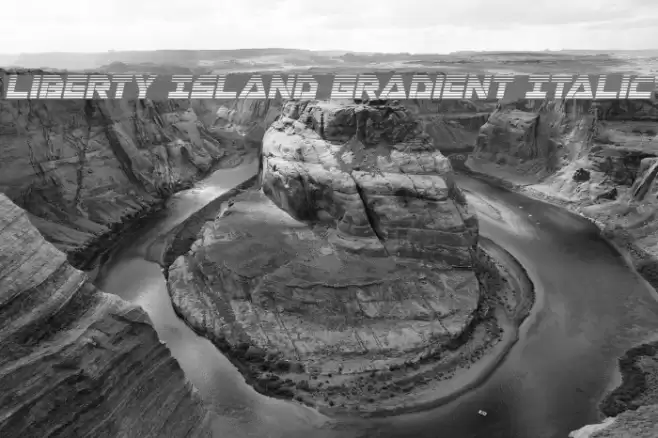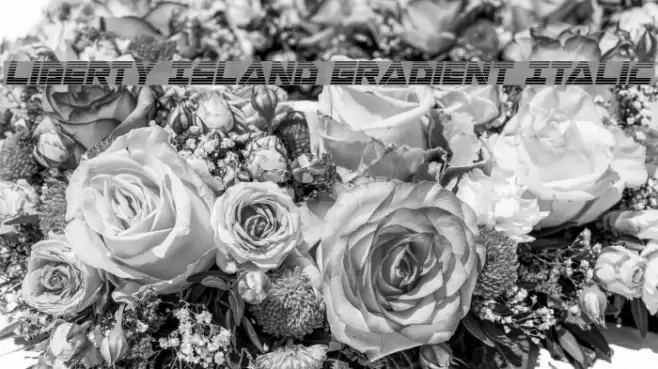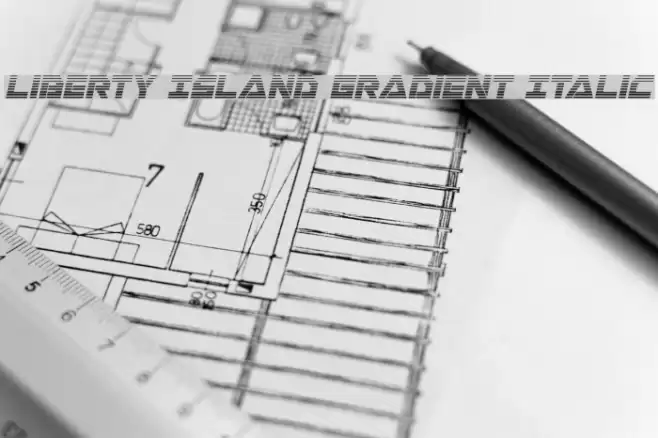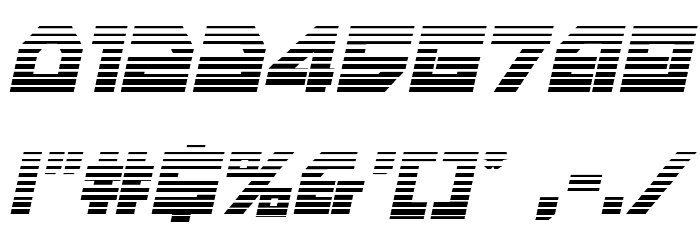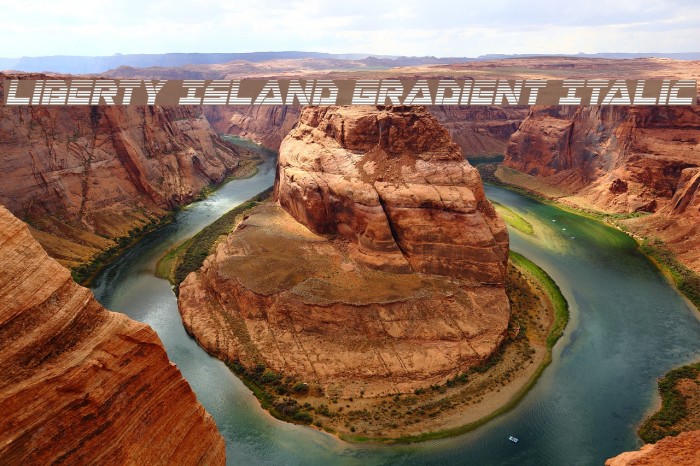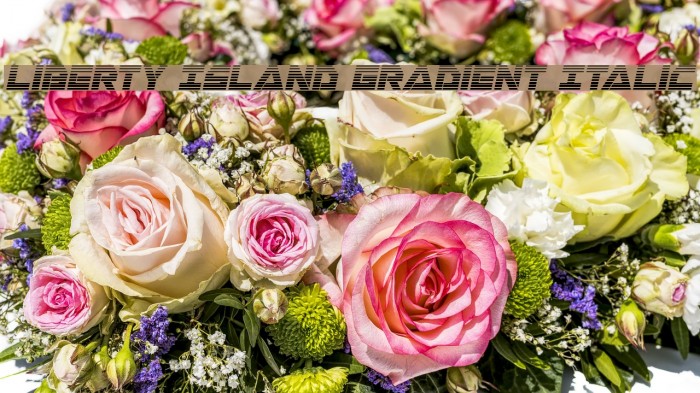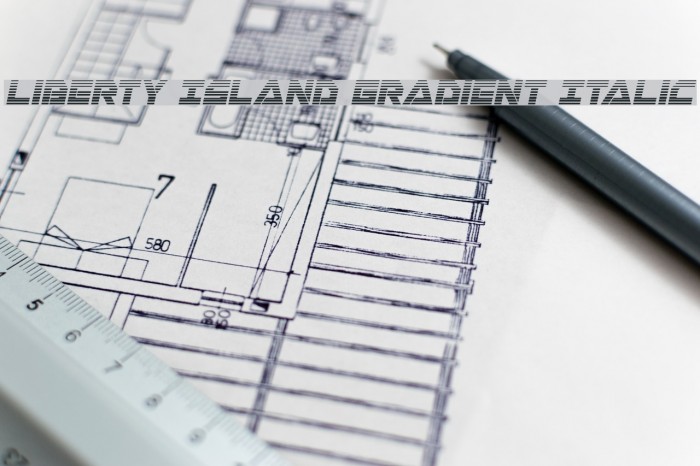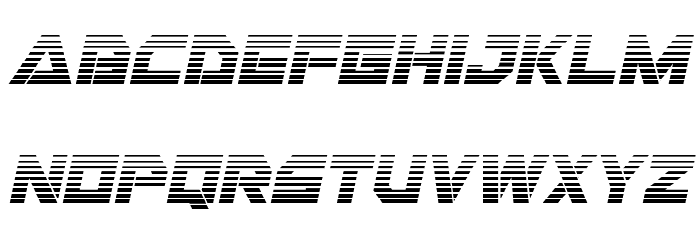
Liberty Island Gradient Italic Font
Liberty Island Gradient Italic Description
This font features a bold, italicized design with a unique gradient effect created by horizontal lines. Each character is constructed with a series of parallel lines that give it a dynamic, futuristic appearance. The uppercase and lowercase letters maintain a consistent style, with sharp angles and a slightly condensed form. Numbers and special characters follow the same design principles, ensuring uniformity across all glyphs. The overall look is modern and eye-catching, making it suitable for projects that require a strong visual impact.
A bold, italicized font with a gradient effect from horizontal lines, offering a modern and dynamic look from Uncategorized fonts.
- Proposed Projects: Ideal for branding, posters, digital media, and any project needing a futuristic and bold typeface.